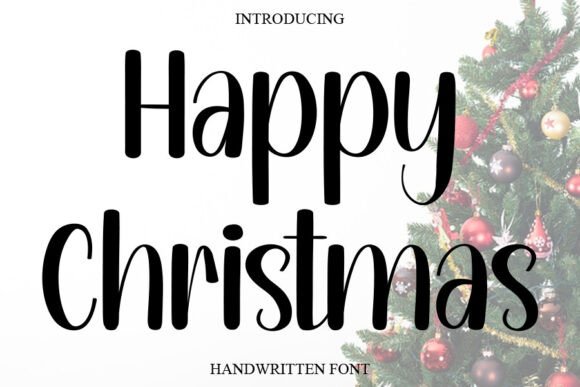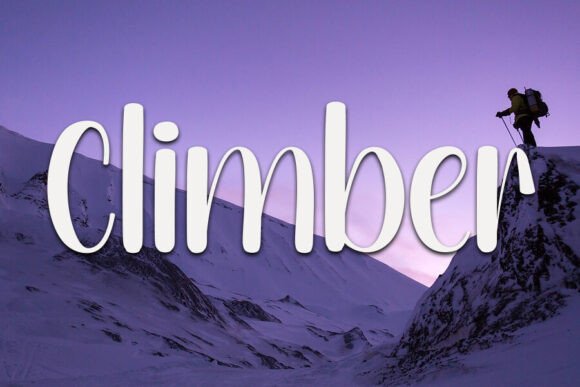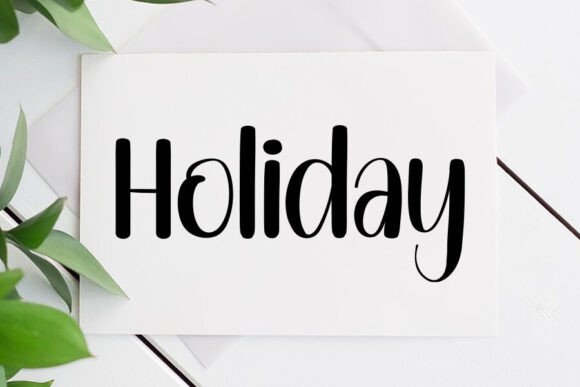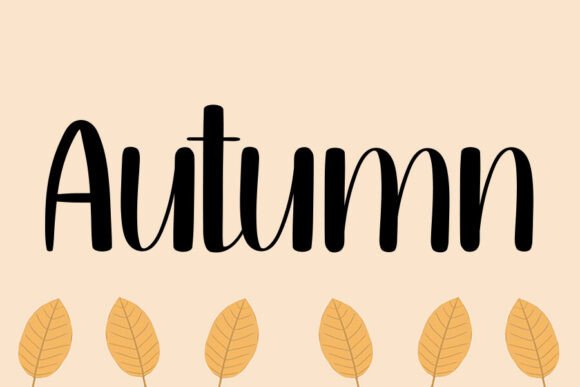
Happy Christmas Font
About the Happy Christmas Font
Step up your design game with Happy Christmas Font, a font that exudes confidence and style. Happy Christmas is a sweet and cursive handwritten font. This gentle font will look gorgeous on a variety of design ideas. It will add a joyful and romantic touch to each of your projects! Perfectly fit for branding, logo, wedding things, greeting cards, fashion, lookbook, marketing promotion, and any time you want your design to look fancy and elegant but still casual.
Happy Christmas excels in projects requiring a touch of whimsical elegance—think holiday cards, wedding stationery, or feminine branding. Its cursive style works beautifully for short text, logos, and headlines, adding a handcrafted feel. However, avoid using it for large blocks of text or UI elements; its delicate nature makes it less legible for extended reading.
Pair it with a clean sans-serif like Lato or Open Sans for a balanced contrast, or a playful script font like Pacifico for a cohesive, hand-drawn aesthetic. A modern serif like Playfair Display can add sophistication, while a geometric sans-serif like Montserrat provides a structured counterpoint to its organic curves.
The font’s core personality is cheerful and romantic, conveying a sense of gentle sophistication and festive charm. It’s ideal for brands aiming for a heartwarming, approachable, yet stylish image.
Happy Christmas Font Usage Examples
Happy Christmas Font Example